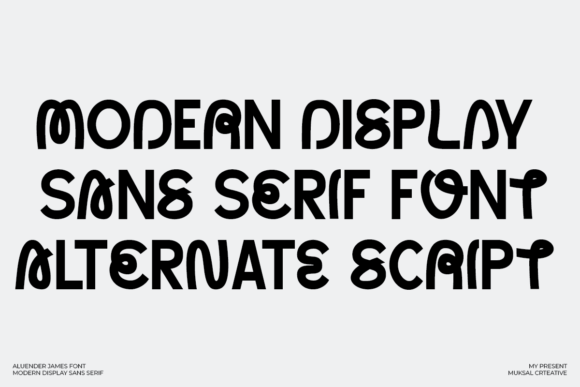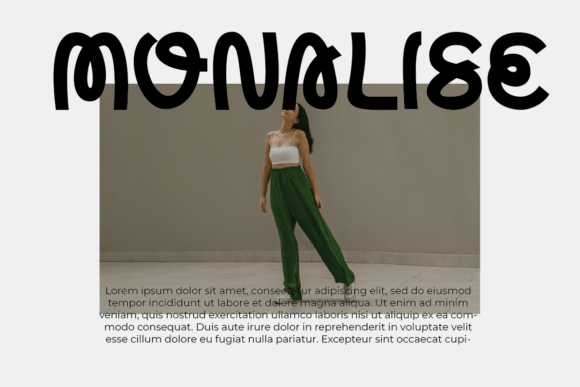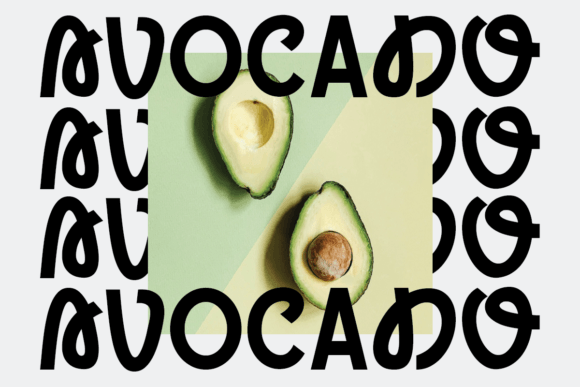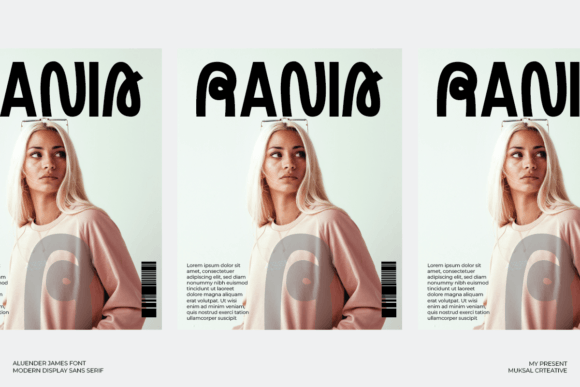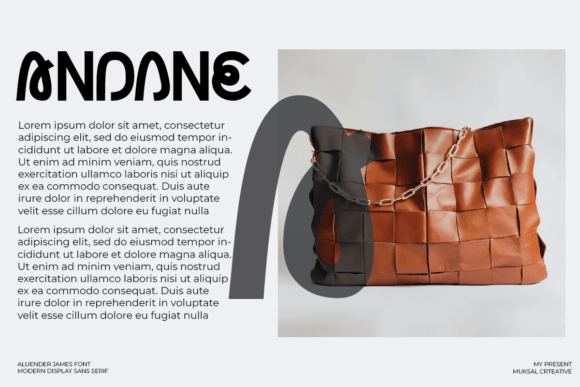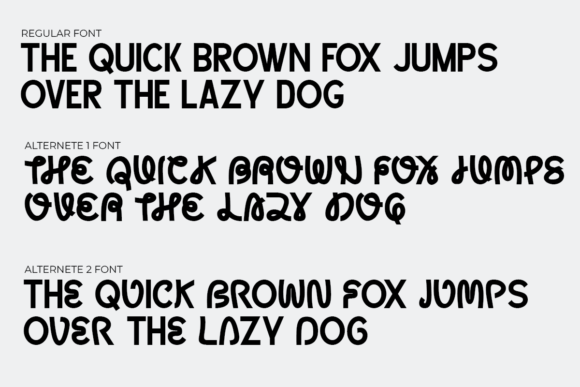
Introducing Aluender James Font: The Ultimate Blend of Modern Sans Serif and Elegant Script
In the world of typography, finding the perfect font that combines style, versatility, and readability can be a daunting task. However, Aluender James Font is here to revolutionize your design projects with its unique blend of modern sans serif and elegant script elements. This font is meticulously crafted to provide designers with a versatile tool that can effortlessly adapt to various design needs, from branding and posters to invitations, social media, and web design.
The Perfect Blend of Modernity and Elegance
Aluender James Font stands out with its distinctive combination of clean, modern sans serif style and dynamic, characterful script elements. The sans serif style offers a sleek, minimalist appearance that exudes professionalism and sophistication. On the other hand, the script alternate adds a personal and creative touch, allowing designers to infuse their projects with a unique personality. This blend of styles makes Aluender James incredibly versatile, suitable for a wide range of design projects that require both professionalism and creativity.
Designed for Versatility
One of the key features of Aluender James Font is its versatility. The font is designed to be highly adaptable, making it perfect for various applications. Whether you’re working on a formal branding project, a casual social media post, or an elegant wedding invitation, Aluender James provides the right professional touch with the creative flexibility needed to produce unique and captivating designs. The font’s ability to seamlessly blend modernity with elegance makes it an ideal choice for designers who want to create standout and eye-catching works.
Optimal Readability and Aesthetics
Aluender James Font is not only stylish but also highly readable. Each letter is meticulously crafted to ensure that the font remains clear and legible, even at smaller sizes. This attention to detail ensures that your designs are not only visually appealing but also effective in communicating your message. The font’s readability is crucial for digital applications, where legibility on various devices and screen sizes is paramount.
Applications of Aluender James Font
The applications of Aluender James Font are vast and varied. Here are a few examples of how this versatile font can be used:
• Branding: Create a lasting impression with a modern and elegant logo that perfectly represents your brand’s identity.
• Posters and Flyers: Grab attention with bold headings and engaging content that showcases your creativity.
• Invitations: Add a touch of elegance and sophistication to your wedding, birthday, or event invitations.
• Social Media and Web Design: Enhance your online presence with a font that is both modern and engaging, perfect for headings, titles, and more.
Why Choose Aluender James Font?
Choosing Aluender James Font for your design projects offers numerous benefits. Here are a few reasons why designers and crafters prefer this font:
• Unique Style: Offers a distinctive blend of modern sans serif and elegant script elements.
• Versatility: Suitable for a wide range of design projects, from formal to casual applications.
• Readability: Meticulously crafted for optimal readability without sacrificing aesthetics.
• Professionalism: Adds a professional touch to your designs while allowing for creative flexibility.
Aluender James Font is a game-changer for designers and crafters looking for a versatile, stylish, and highly readable font. Its unique blend of modern sans serif and elegant script elements makes it an ideal choice for a wide range of design projects. Whether you’re working on branding, posters, invitations, or digital content, Aluender James provides the perfect combination of professionalism and creativity. With this font, you can create standout and eye-catching designs that leave a lasting impression.
Experience the versatility and elegance of Aluender James Font in your next design project. Discover how this font can elevate your designs and help you achieve your creative goals.